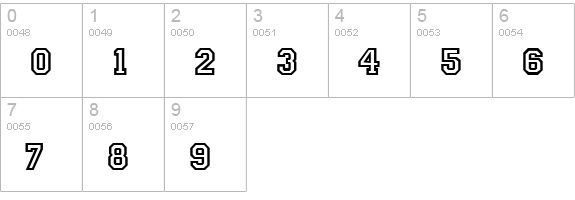
Ivy League Outline Font Details
Introducing Ivy League Outline, a captivating font that exudes elegance and sophistication. This exquisite typeface effortlessly combines boldness with a delicate touch, making it perfect for a wide range of design projects. Whether you're crafting a luxurious logo, designing an eye-catching poster, or creating an elegant invitation, Ivy League Outline will add a touch of class to your work. With its clean lines and defined edges, Ivy League Outline commands attention and creates a lasting impression. Its unique design showcases the perfect balance between modernity and tradition, making it versatile and suitable for both contemporary and vintage-inspired designs. What sets Ivy League Outline apart is not only its timeless aesthetic, but also its accessibility. This extraordinary font is offered completely free of charge, allowing designers of all levels to effortlessly elevate their creations without breaking the bank. To obtain this stunning font, simply visit FontsMarket.com, where Ivy League Outline is readily available for download at no cost. With Ivy League Outline in your design arsenal, you have the opportunity to create breathtaking visuals that leave a lasting impact. Whether you're a professional designer or a passionate hobbyist, this font is the key to unlocking your creative potential. Embrace the beauty and sophistication of Ivy League Outline, and watch as your designs reach new heights of elegance and professionalism.